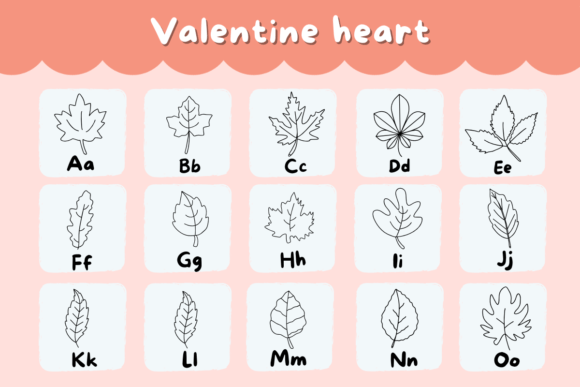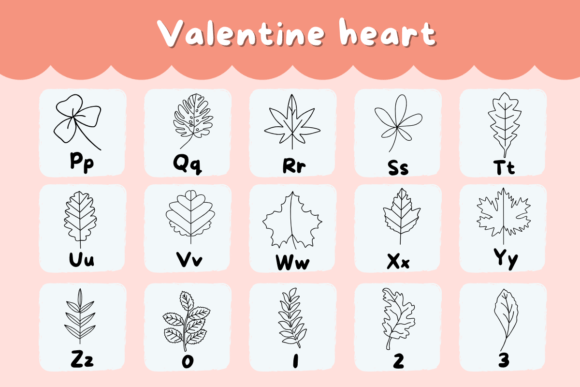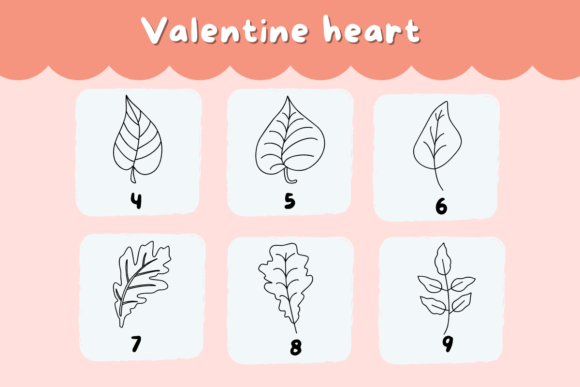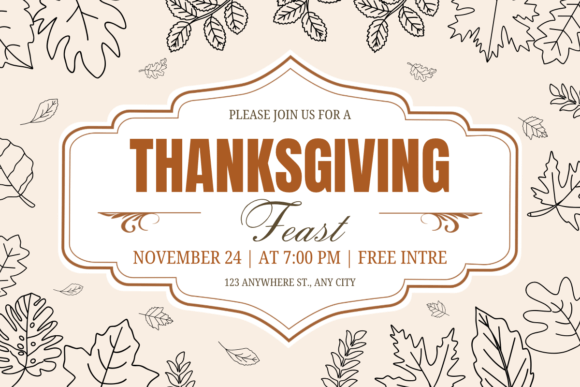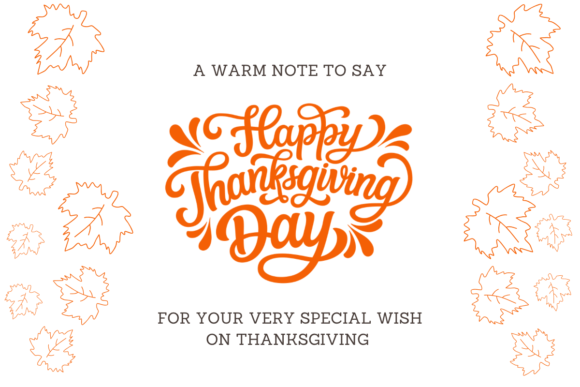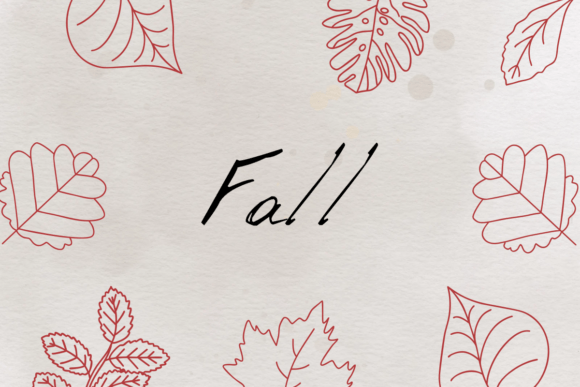
Introduction to Leaf Thanksgiving Font
Leaf Thanksgiving is a fun and creative dingbat font that features different kinds of leaves.
Instead of letters, each character shows a unique leaf design It’s perfect for adding a natural touch to your designs, like autumn-themed projects or nature-inspired crafts.
Key Features of Leaf Thanksgiving Font